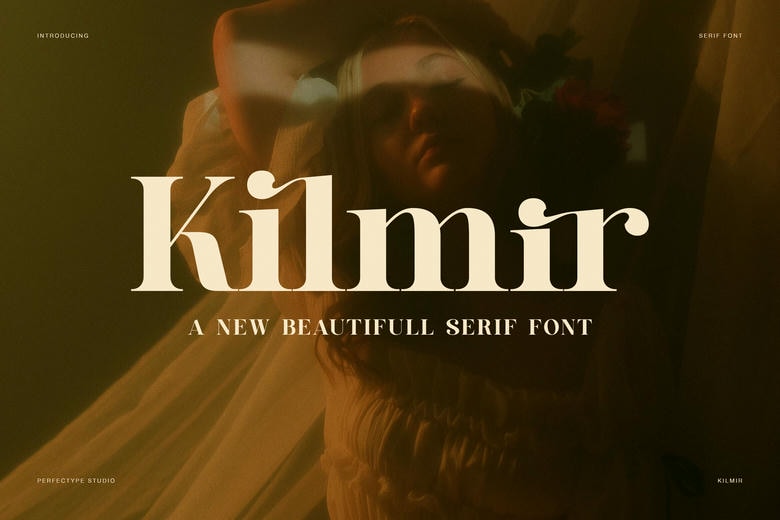
Kilmir Font
Kilmir is a sophisticated contemporary serif font that is designed to convey confidence, coziness, and sophisticated simplicity. At the very sight, this font is slick and organized. It is thus a powerful option among designers who desire typography that can be expressive yet dominant.
Kilmir unites classic serif underpinnings with well-shaped lines and contrast. Consequently, every letterform is soft structured. The forms are natural, and the minor details are employed without being distracting. In addition, the general design is clean, which contributes to the font being all-style.
Kilmir Serif Font